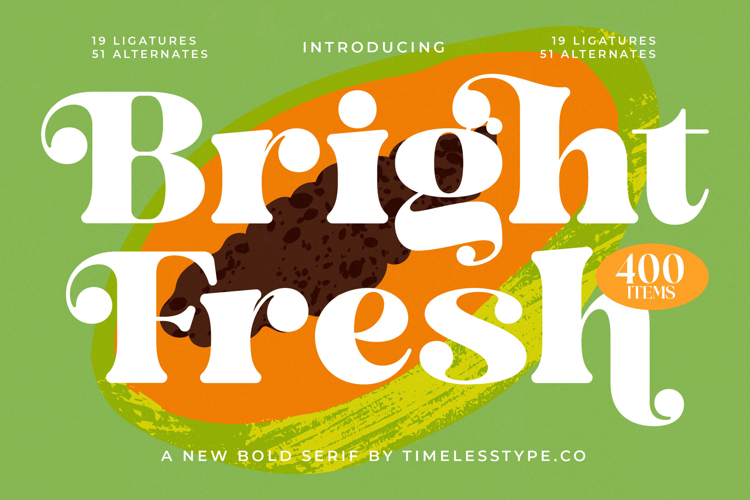
Bright Fresh - New Bold Serif Font
Elevate your designs with the distinctive allure of Font Bright Fresh - New Bold Serif Font Serif Display, a typeface engineered to command attention. This bold serif display font exudes a unique blend of vintage charm and modern sophistication, making it an undeniable focal point for any creative endeavor. Its high-contrast letterforms and elegantly softened serifs create a harmonious visual rhythm, promising an eye-catching and memorable aesthetic that instantly communicates premium quality.
Unleash unparalleled creative freedom with Font Bright Fresh - New Bold Serif Font Serif Display, meticulously crafted with an impressive suite of design elements. Boasting 19 distinctive ligatures and 51 extensive alternates, this font offers 400 unique items to customize your typography with precision and flair. These rich stylistic options ensure that every headline, logotype, or branding element can be perfectly tailored, reflecting a truly bespoke and sophisticated identity.
With its extensive multilingual support, Font Bright Fresh - New Bold Serif Font Serif Display adapts seamlessly across global markets, making it incredibly versatile for international projects. This crucial feature ensures your message transcends language barriers while maintaining its intended aesthetic impact and professional integrity. Embrace a font that empowers your global reach without compromising on style or functionality.
Font Bright Fresh - New Bold Serif Font Serif Display is the definitive choice for projects demanding a touch of elegance and impactful presence. It is perfect for luxury branding, high-end packaging, editorial design, fashion labels, cosmetics, and captivating headlines. Deploy this exquisite font to imbue your brand with a fresh, bold character and an undeniable air of refinement, setting your work apart in a crowded visual landscape.